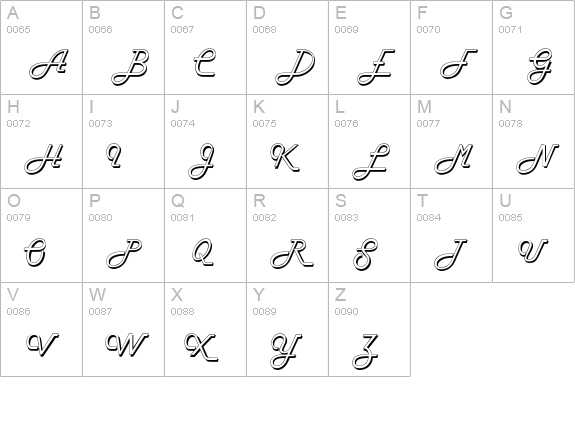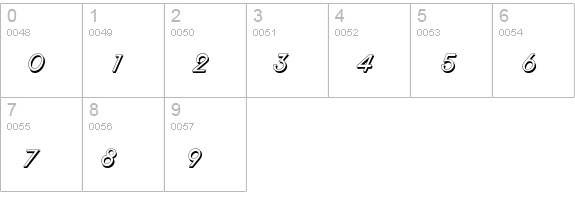
Hollow Font Details
The Hollow font is a striking and modern typeface that exudes elegance and sophistication. Its unique hollowed-out design adds a touch of creativity and style to any project. Perfect for creating eye-catching headlines, logos, or social media graphics, this font is sure to make a bold statement. The best part? The Hollow font is completely free to download at FontsMarket.com. Simply visit the website to access this stunning font and enhance your design projects with its sleek and contemporary aesthetic. Don't miss out on the opportunity to elevate your designs with the Hollow font today!